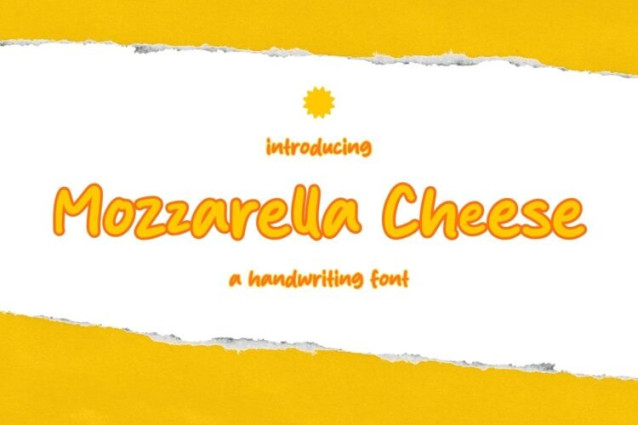
Mozzarella Cheese Font
Mozzarella Cheese Font is a simple and friendly handwritten font. Its natural and unique style makes it incredibly fitting to a large pool of designs. The only limit is your imagination!